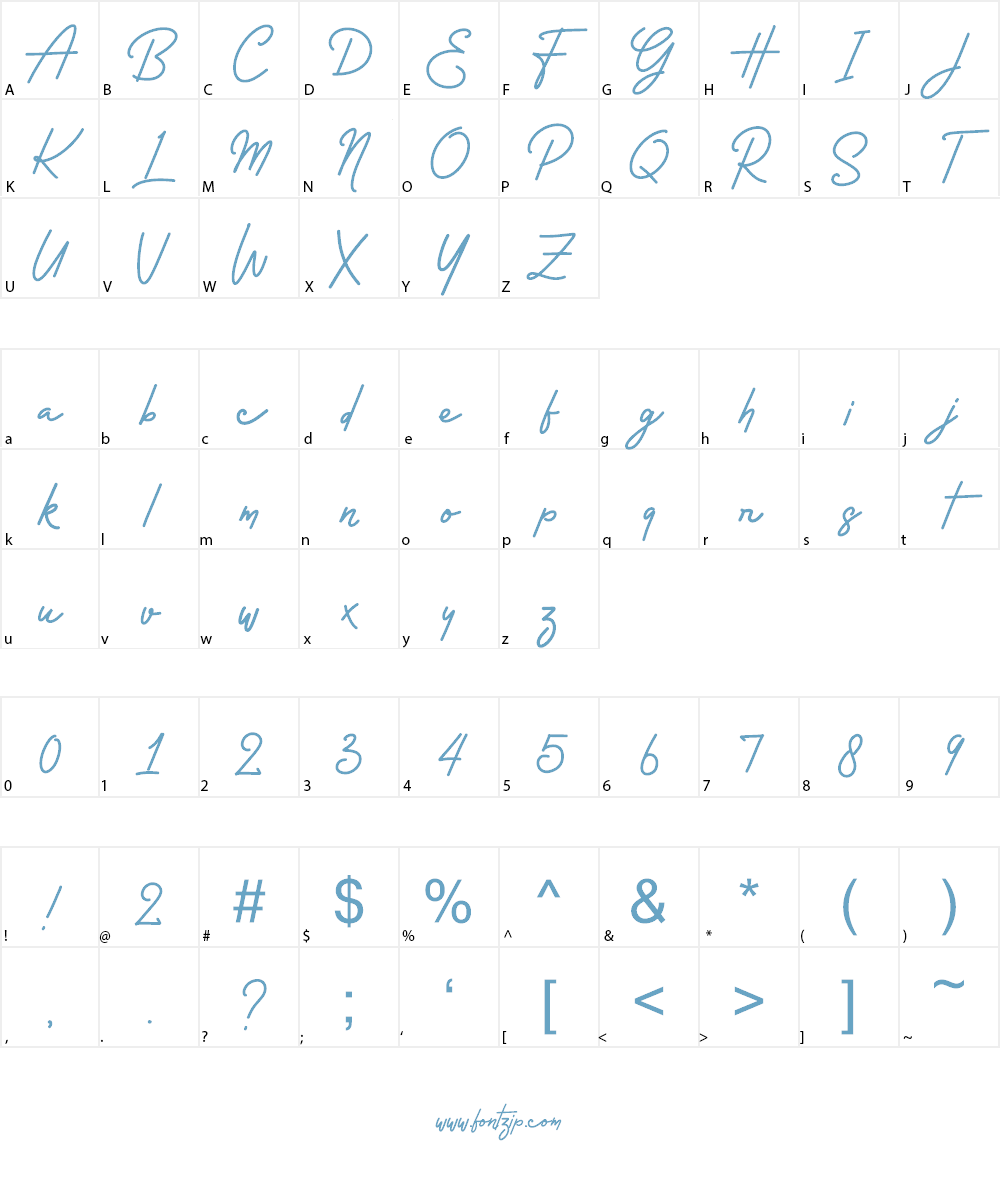
Rossela is new signature font with beauty and natural handwritten curve. Perfect for your design need such as poster, personal logo, invitation, and so on